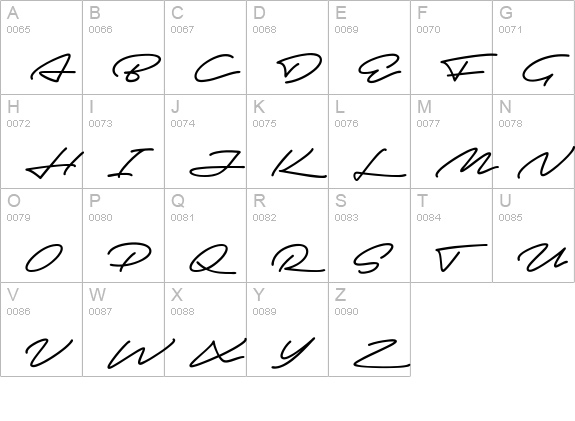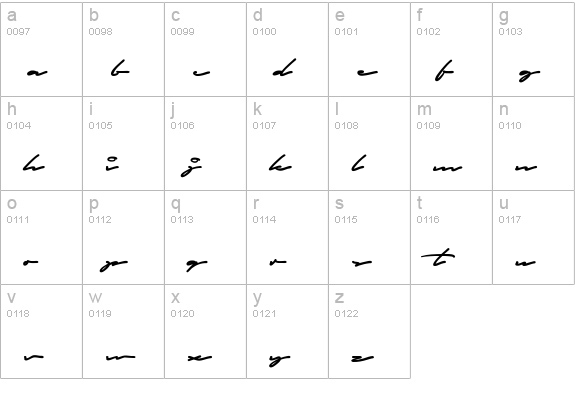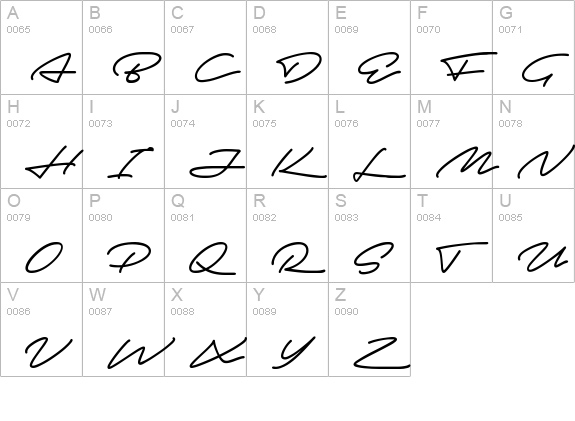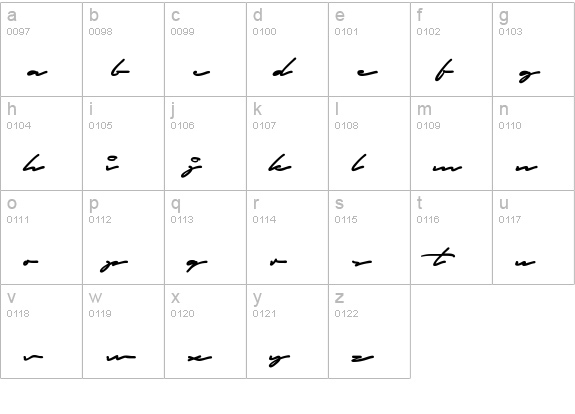
Autograf PERSONAL USE ONLY Font Details
Autograf PERSONAL USE ONLY font is a stunning typeface that adds a touch of elegance and sophistication to any design project. With its clean lines and stylish curves, this font is perfect for creating eye-catching logos, branding materials, invitations, and more. What makes Autograf PERSONAL USE ONLY font even more special is that it is available for free download at FontsMarket.com. Yes, you read that right - you can get your hands on this incredible font without spending a single penny! Whether you're a professional designer looking to elevate your work or an individual who wants to add a personal touch to their projects, Autograf PERSONAL USE ONLY font is the perfect choice. Its versatility allows it to be used in a wide range of design applications, from digital to print. The characters in Autograf PERSONAL USE ONLY font are carefully crafted, ensuring that each letter and symbol is visually pleasing and harmonious. The attention to detail in this font is evident, with every stroke and curve thoughtfully designed to create a cohesive and polished look. Not only does Autograf PERSONAL USE ONLY font look amazing, but it is also incredibly easy to use. It is compatible with various design software and can be installed on both Mac and PC systems, making it accessible to a wide range of users. So why wait? Download Autograf PERSONAL USE ONLY font now from FontsMarket.com and add a touch of elegance to your next design project. Whether you're a professional or a hobbyist, this font is sure to impress. Best of all, it's free!